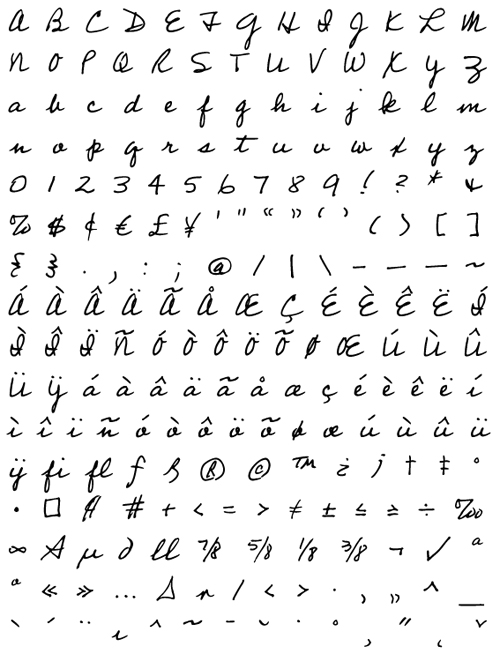
Suggestion on script typeface
I am looking for a script typeface to be paired with Fago (both sans and serif) for a personal project. It should recall the line drawn by a pen and not by a brush, and, in the meantime, should be very legible and contemporary. The idea is to use this script typeface "on a second layer" to be added over the one using Fago and representing the thoughts of an artisan.
For now I've found this one, but I'm not that satisfied about the "z", which I find too long and not that legible (I would like it to be as high as the "x").
Although, Rollerscript seems to be a little too thin than what I am looking for, and Suomi is not as legible as I would need my font to be, with the letters blending into one another.
Are there other similar typefaces coming to your mind?